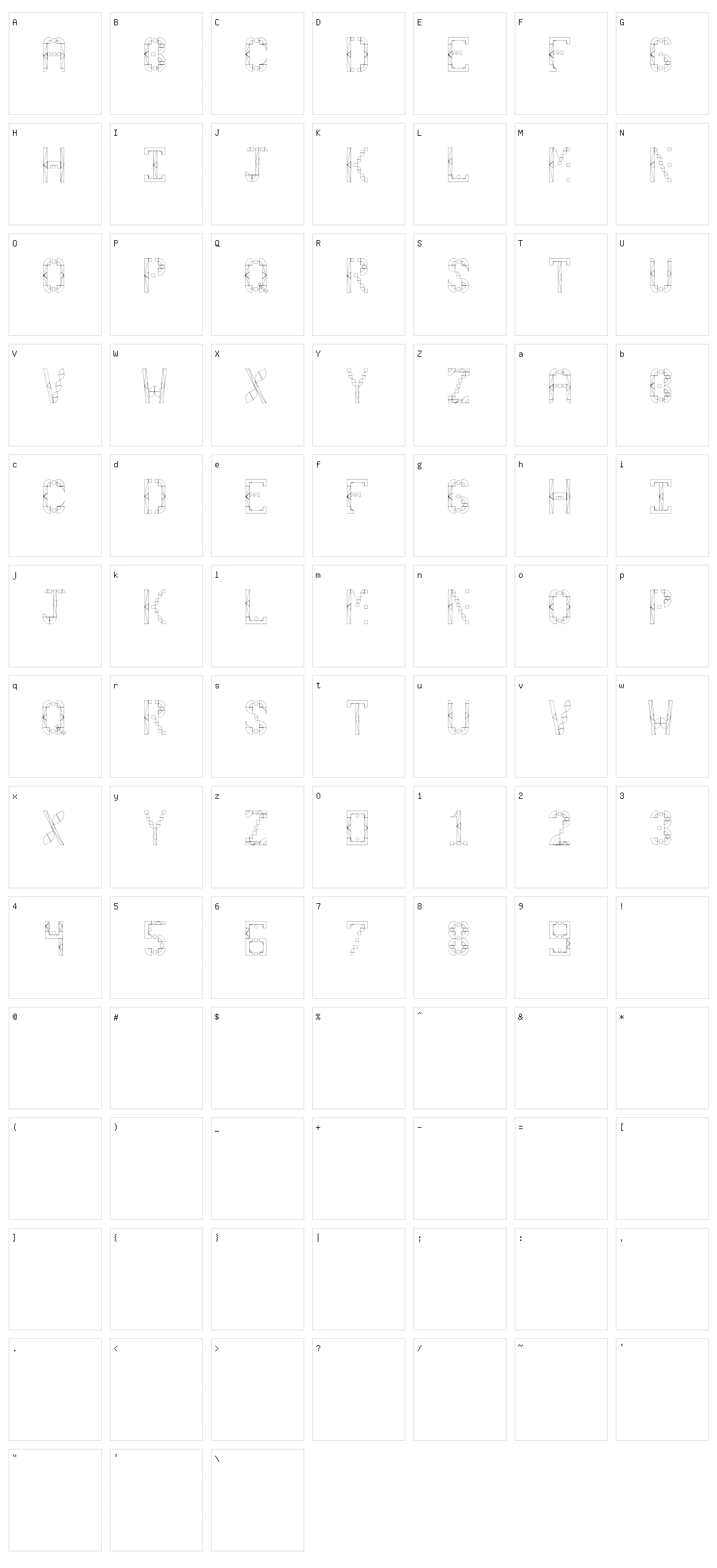
The free font Second Wind is carefully designed by Cassie Fernandez, showcasing a thoughtful balance of creativity and usability and falls under the Decorative font style. When you download the ZIP file, it contains only 9.61 KB of font files, making it lightweight and quick to download. Please review the license details below to understand permitted usage and distribution rights. If license information is not available, we recommend using this font for personal projects only or contacting the author directly for commercial usage permissions.